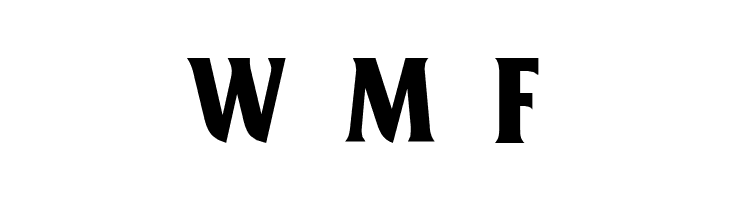
Iconic pictogram font for signage and wayfinding.
A casual, handwritten font with a natural, fluid style.
A bold, decorative blackletter font with circular borders and high contrast strokes.
An artistic and decorative font with intricate, whimsical designs.
Illustrative dingbat font with gardening and outdoor motifs.
A decorative font featuring stylized silhouettes of ancient Egyptian figures.
Cartoonish 1920s-themed pictorial font with illustrated characters and objects.
An ornate, decorative font with intricate patterns in each letter.
A bold, angular font with a futuristic and avant-garde style.
A flowing, cursive script font with elegant, interconnected letters.
A bold, high-contrast serif font with an expressive and modern style.
A bold, futuristic font with geometric shapes and rounded edges.
Bold, geometric decorative pattern with star and floral motifs.
A playful, handwritten font with a bold and whimsical style.
A bold, dynamic, and playful handwritten font with thick strokes.
A classic, elegant script font with fluid, connected characters and ornate flourishes.
A modern italic font with elegant curves and a dynamic slant.
A clean, modern typeface with balanced proportions and consistent stroke width.